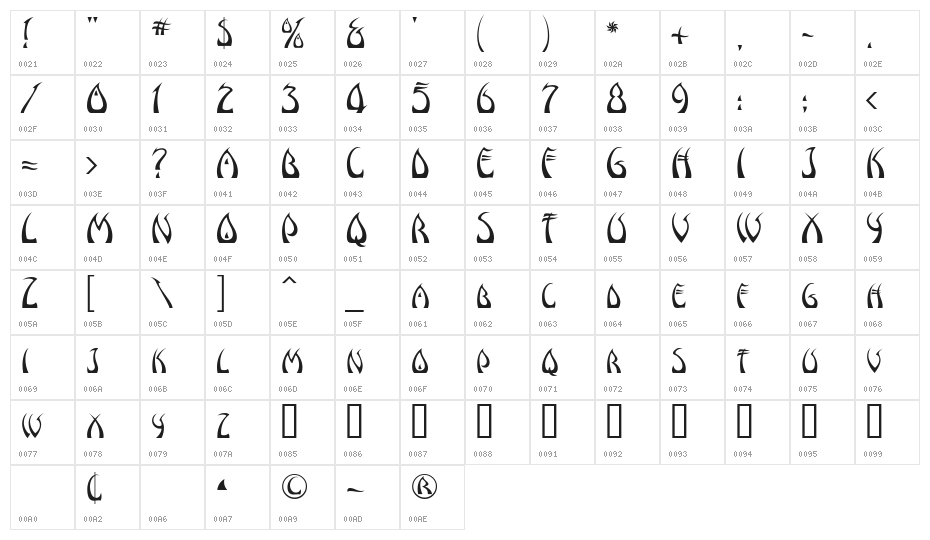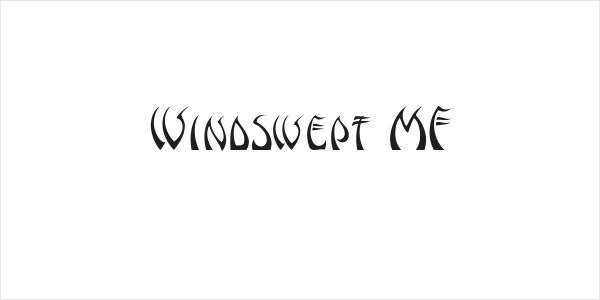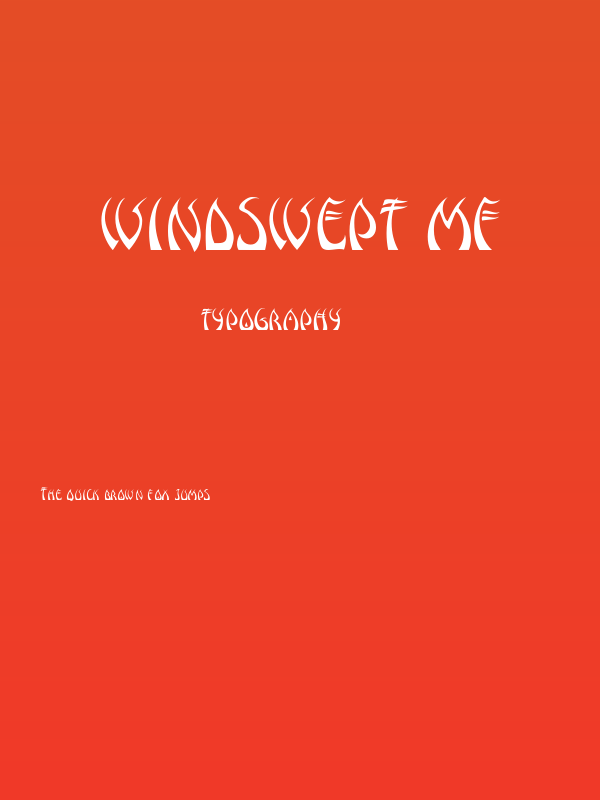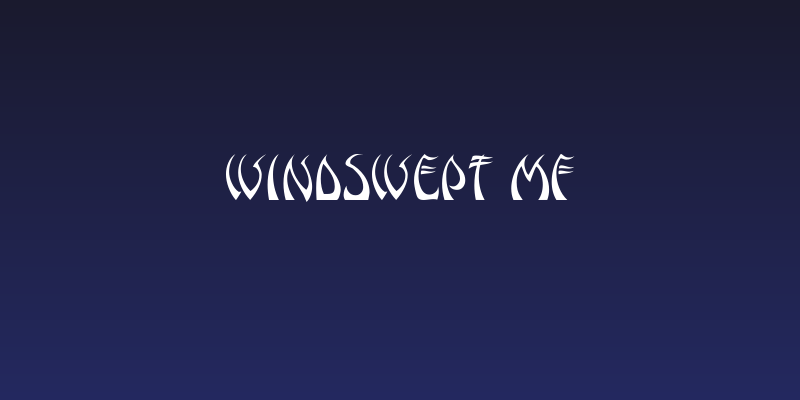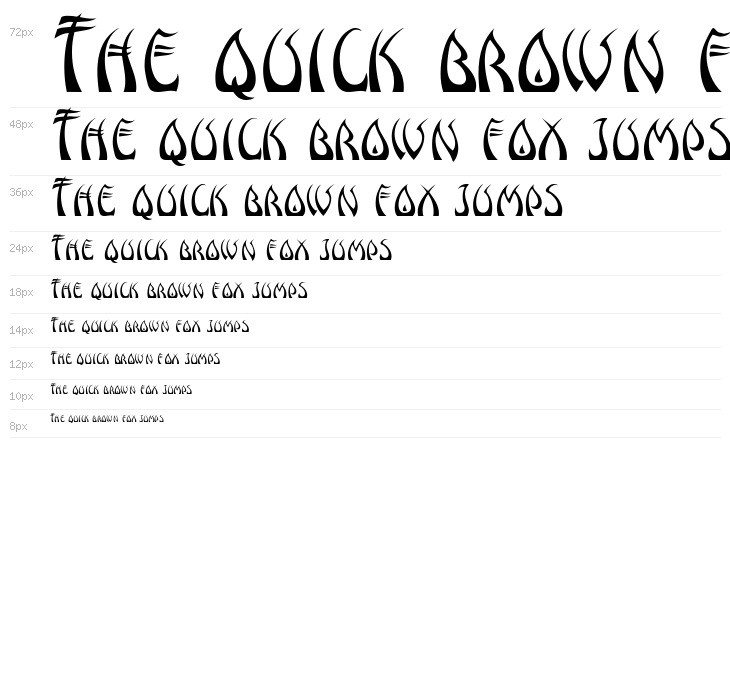
Windswept MF Font
Windswept MF Description
This font features a dynamic and fluid design, characterized by its sweeping curves and sharp edges. The letters have a unique, windswept appearance, giving the impression of movement and energy. The strokes vary in thickness, creating a sense of contrast and drama. The uppercase and lowercase letters maintain a consistent style, with the lowercase being slightly more compact. Numbers and special characters follow the same aesthetic, ensuring a cohesive look across all elements. This font is ideal for projects that require a bold and artistic touch.
| Proposed Projects | Ideal for artistic projects, branding, posters, and creative headlines. |